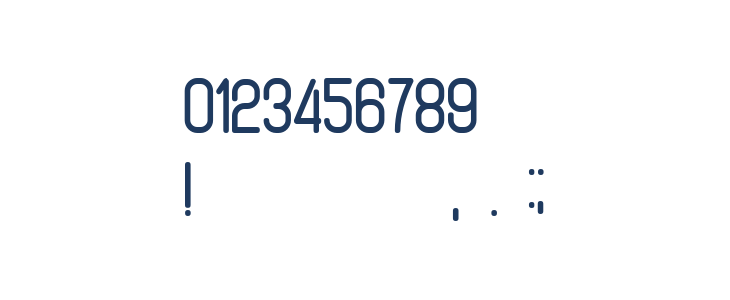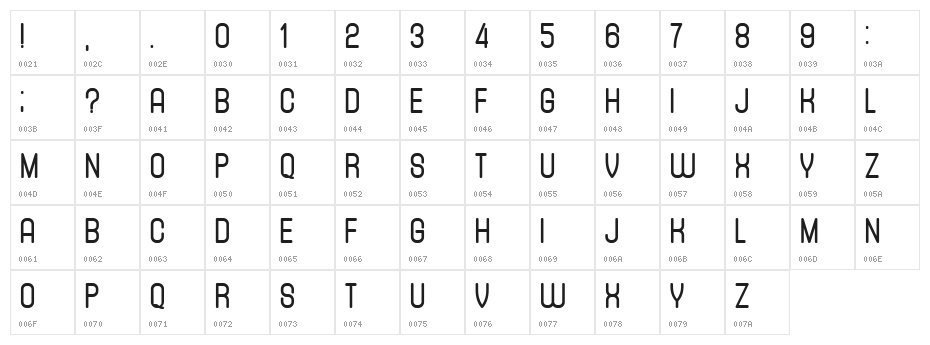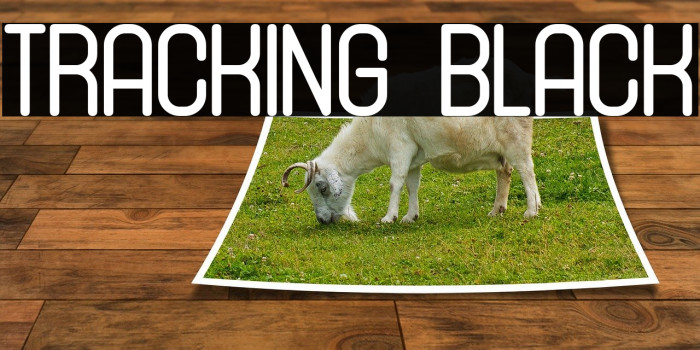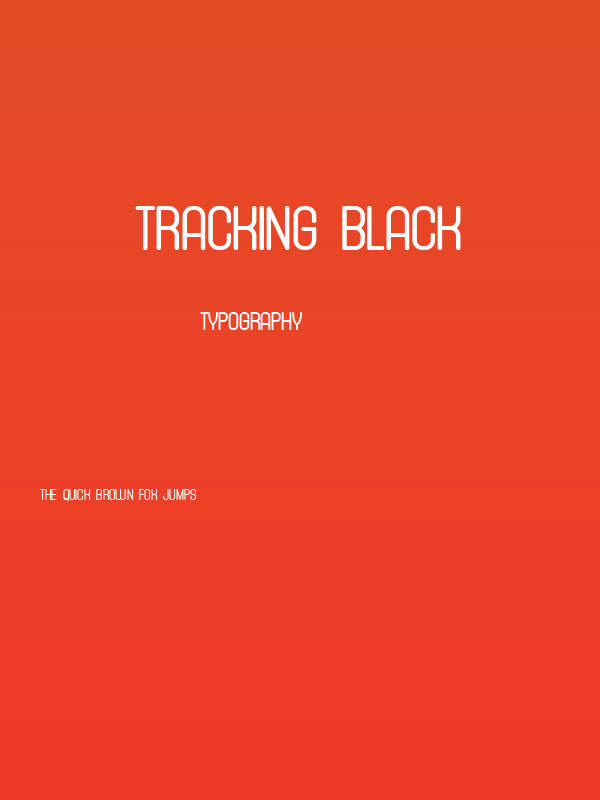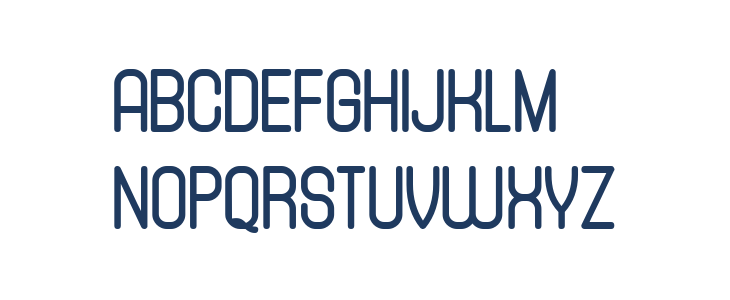
Tracking Black Font
Tracking Black Description
This font features a modern, rounded sans-serif style with uniform stroke widths, creating a clean and contemporary appearance. The characters are evenly spaced, contributing to a balanced and harmonious look. The rounded edges soften the overall feel, making it approachable and friendly. It maintains a consistent weight throughout, which enhances readability and provides a sleek, polished aesthetic. The font is versatile, suitable for various design applications, from digital interfaces to print media. Its simplicity and clarity make it ideal for conveying information effectively.